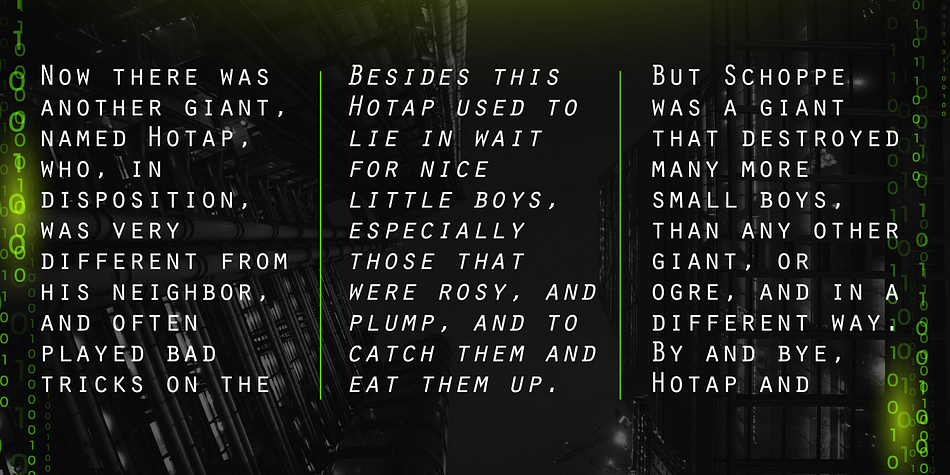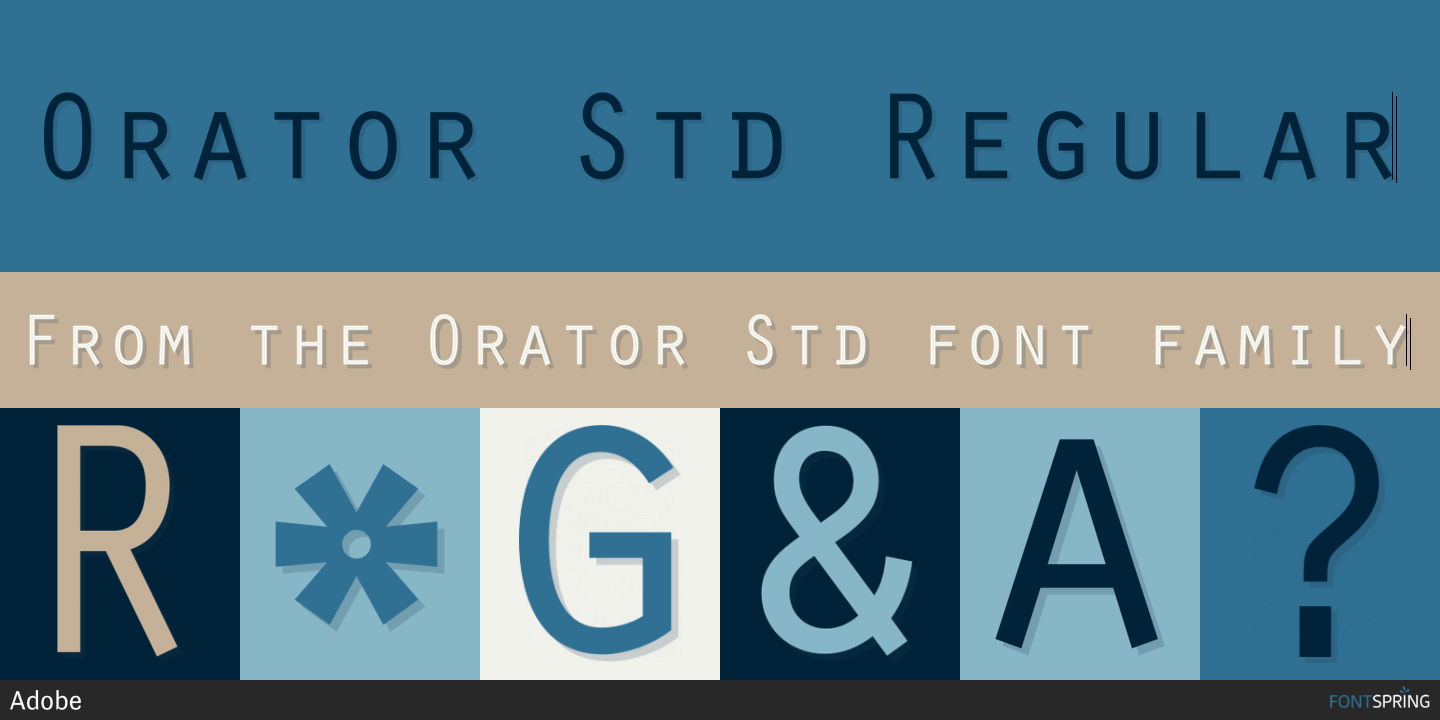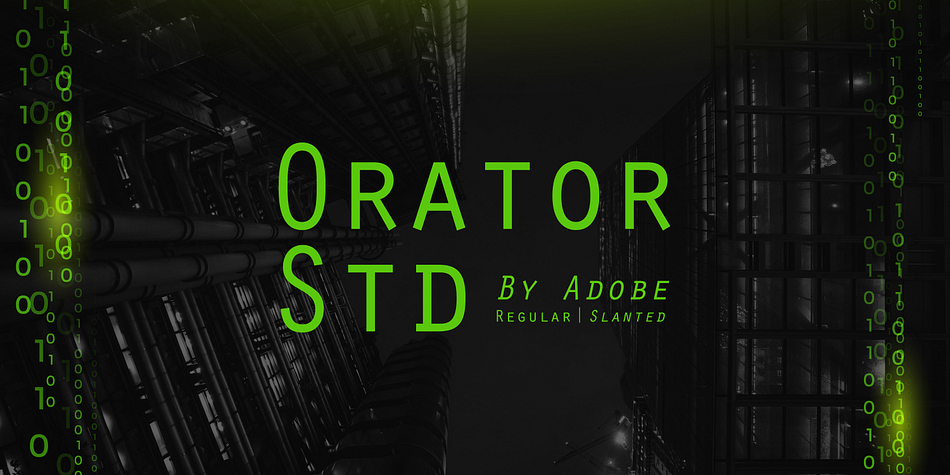
Orator Std is a display sans font family. This typeface has two styles and was published by Adobe.
Orator is a monospaced typeface made up of capitals and small capitals only; it can be used for tabular material or technical documentation. The name Orator comes from the notion that capitals and small capitals are clearer than upper and lowercase letters, thus making it useful for speech notes. It was designed for IBM typewriters by John Scheppler.